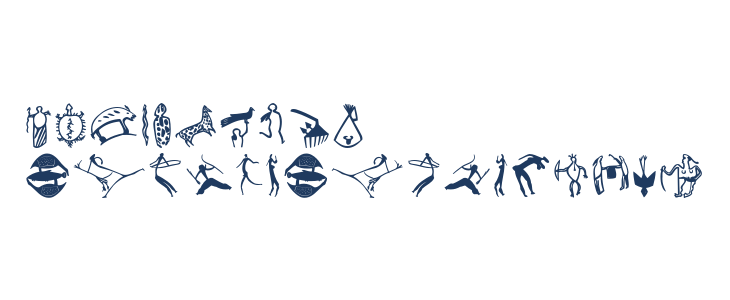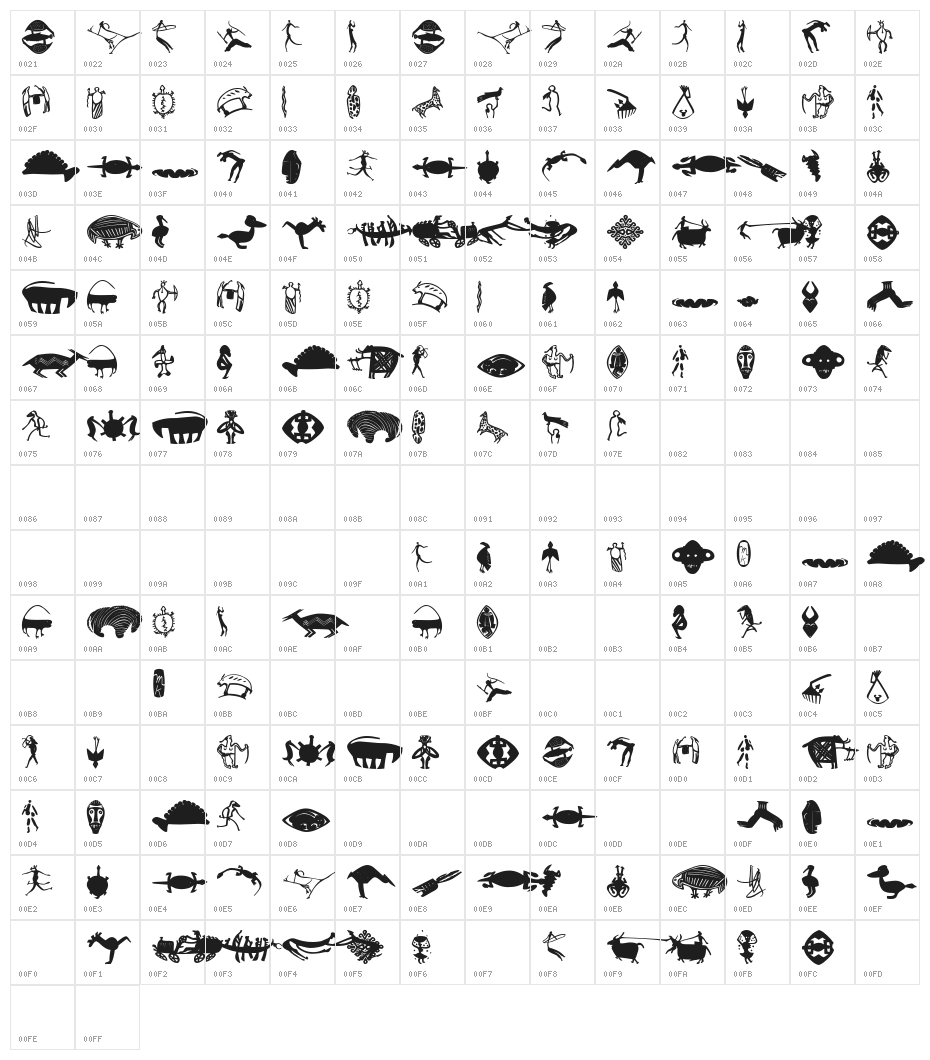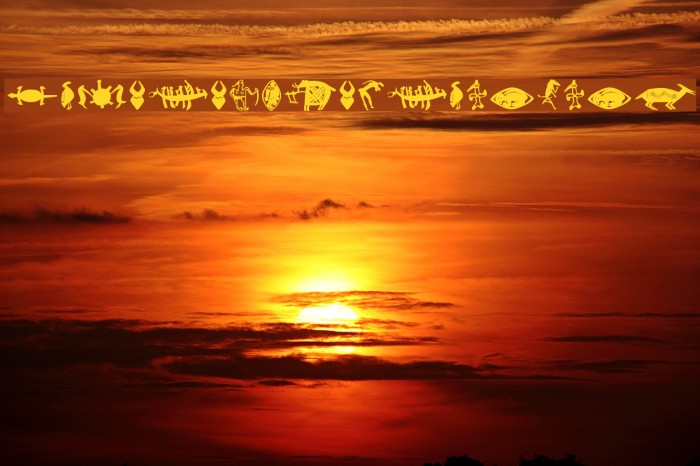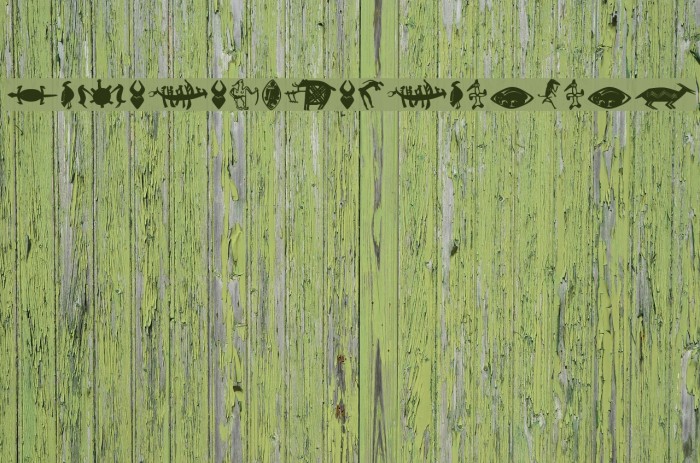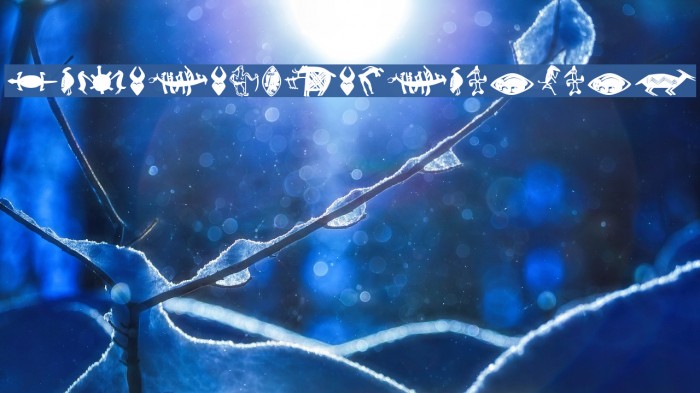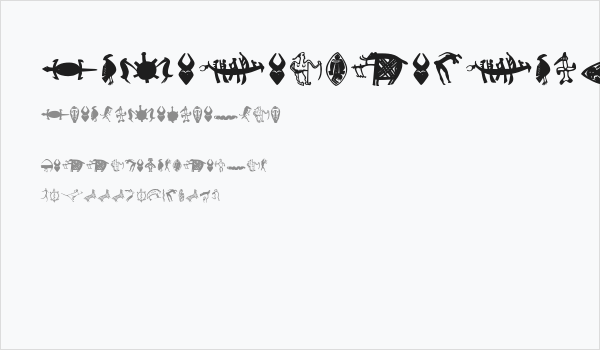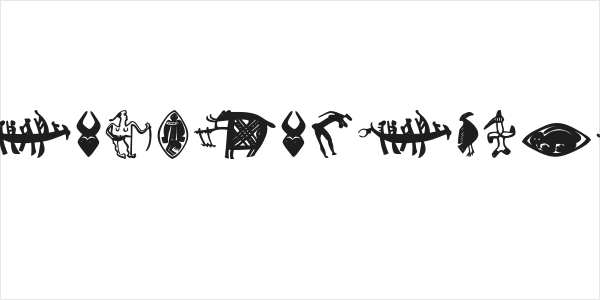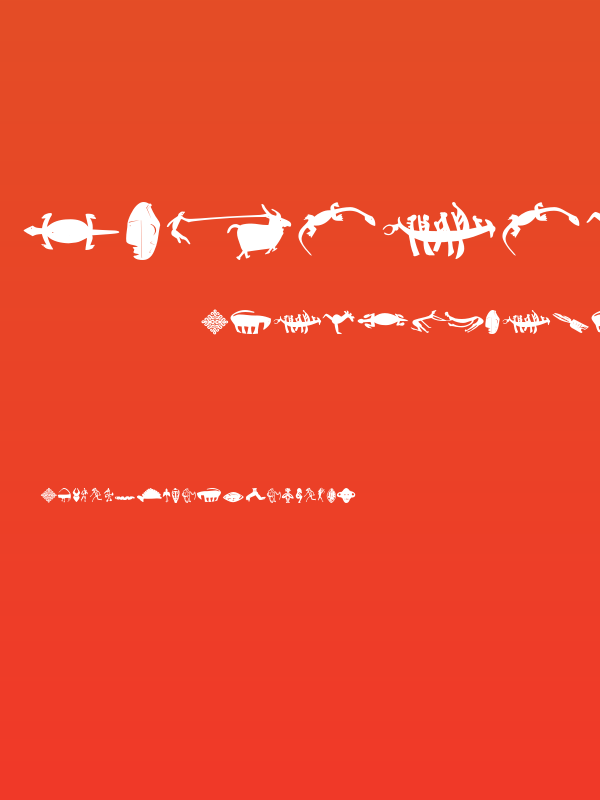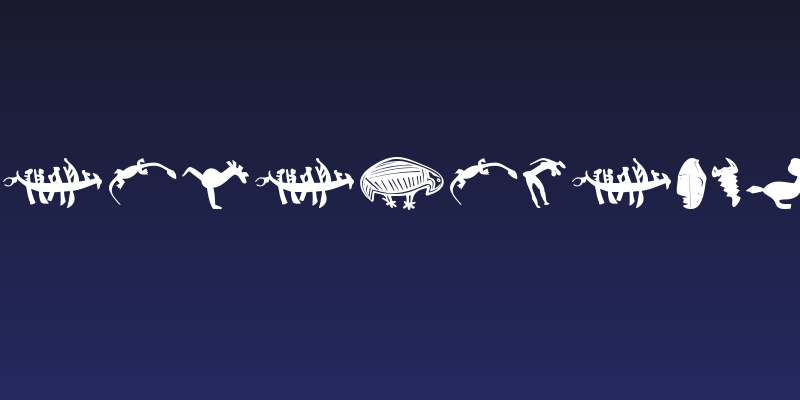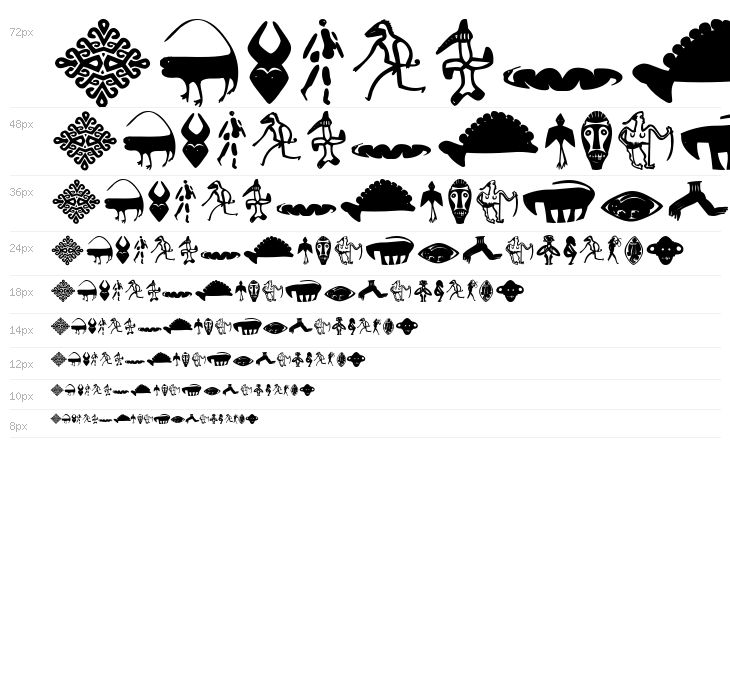
CavePeople-Painting Font
CavePeople-Painting Description
A decorative font inspired by prehistoric cave paintings, featuring pictographic glyphs resembling ancient human figures, animals, and primitive symbols. The characters are irregular, organic, and highly illustrative, evoking a hand-drawn, ancient art style.
| Overall Style | Decorative, Primitive, Hand-drawn |
| Use Case | Logos, Posters, Themed Headlines, Educational Graphics |
| Proposed Projects | ChildrenΓ’β¬β’s books, educational materials, museum displays, themed posters, historical games, creative branding. |